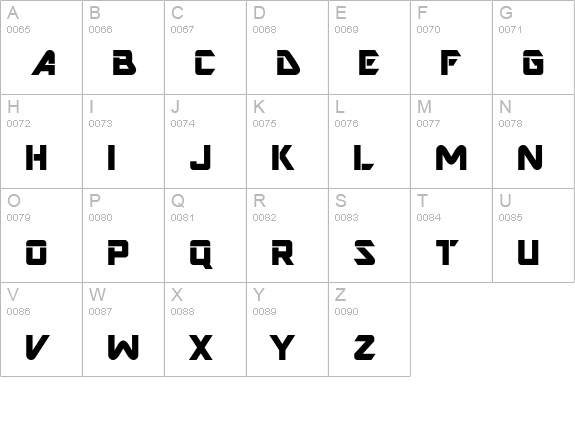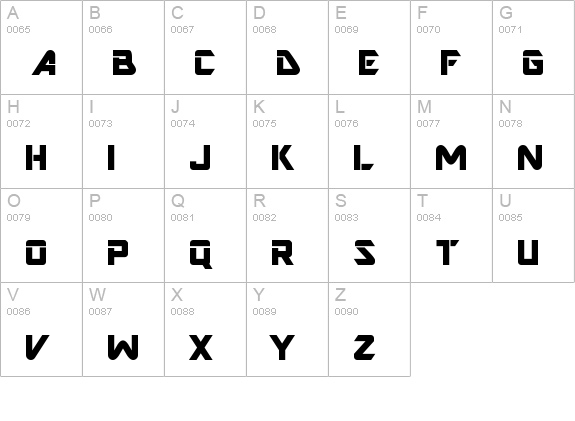
Nesbitt Bold is a strong, high-contrast variant in the Nesbitt typeface family \xE2\x80\x94 well suited to headlines, attention-grabbing titles, and strong calls-to-action.
Nesbitt Bold font is a striking and versatile typeface that exudes confidence and sophistication. With its bold strokes and clean lines, Nesbitt Bold is perfect for making a bold statement in your designs. Whether you're creating a sleek modern website, designing eye-catching marketing materials, or crafting elegant invitations, Nesbitt Bold will elevate your project to the next level. What's even better is that Nesbitt Bold font is available for free download at FontsMarket.com. This means you can easily access this premium font without breaking the bank. Don't miss out on the opportunity to add Nesbitt Bold to your font collection and enhance your creative projects with its timeless appeal. Download Nesbitt Bold today and take your designs to new heights!